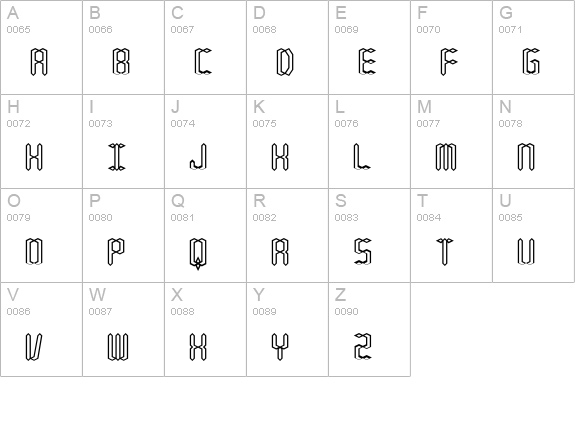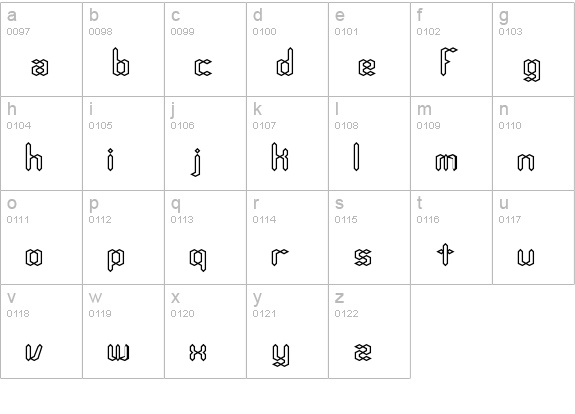
Compliant Confuse 1o -BRK- is a unique and eye-catching font that blends modernity with a touch of playfulness. With its bold, angular lines and quirky curves, this font is sure to grab attention and add a creative flair to any design project. Whether you're creating posters, logos, or social media graphics, Compliant Confuse 1o -BRK- will help your message stand out. What makes this font even more appealing is that it is freely available to download at FontsMarket.com. This means that you can access this stylish typeface without any cost, making it a great choice for both personal and commercial use. Don't miss out on the opportunity to enhance your designs with the captivating charm of Compliant Confuse 1o -BRK-. Download it now and let your creativity soar!